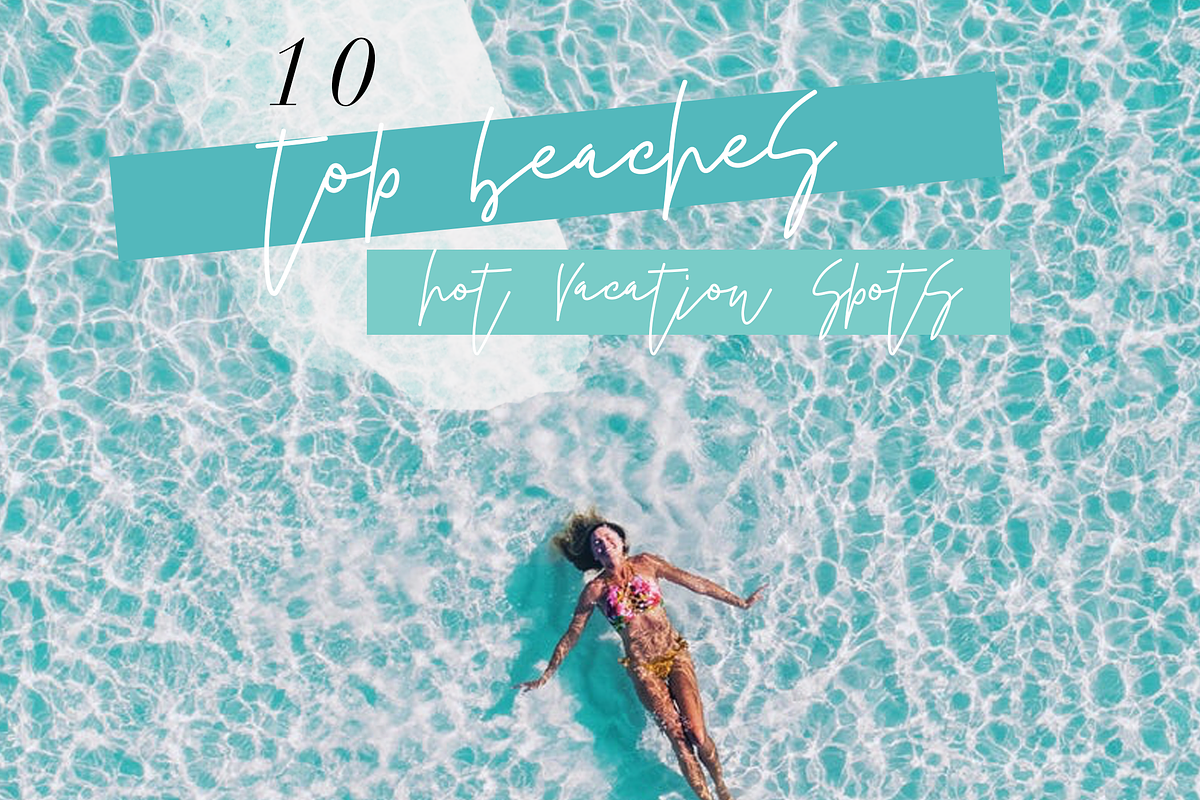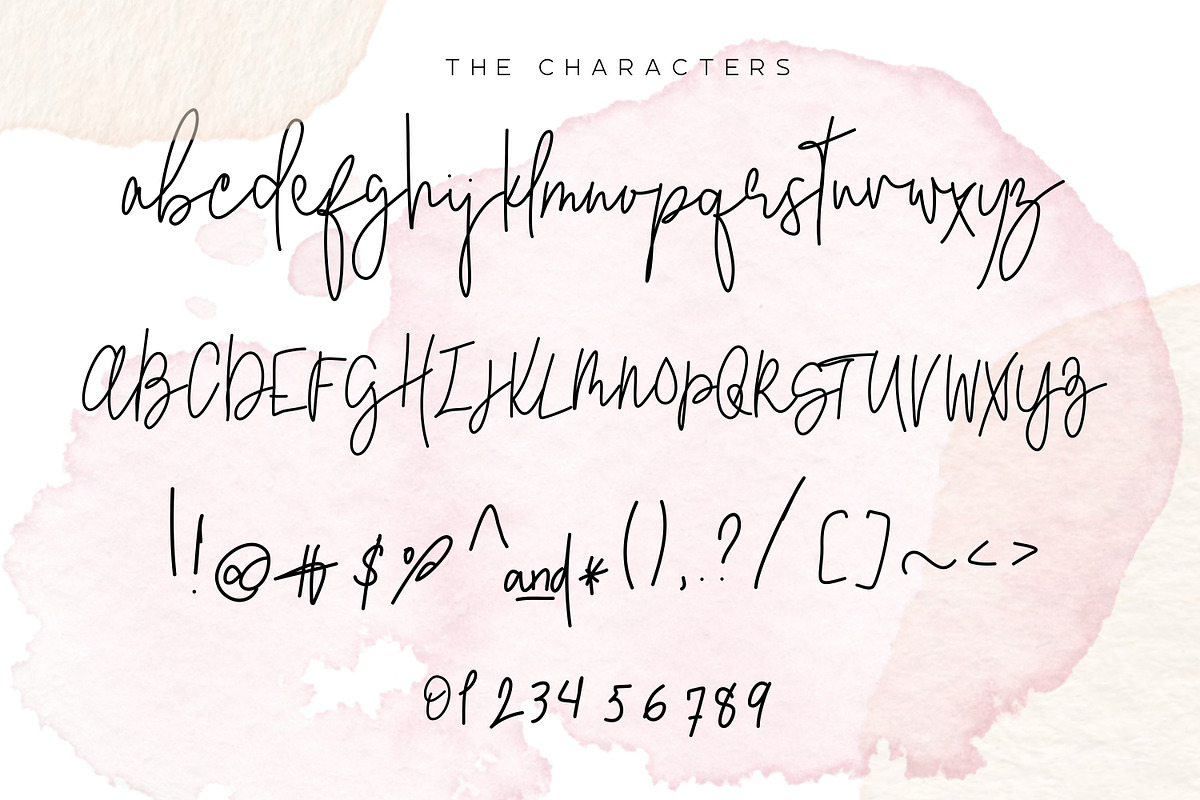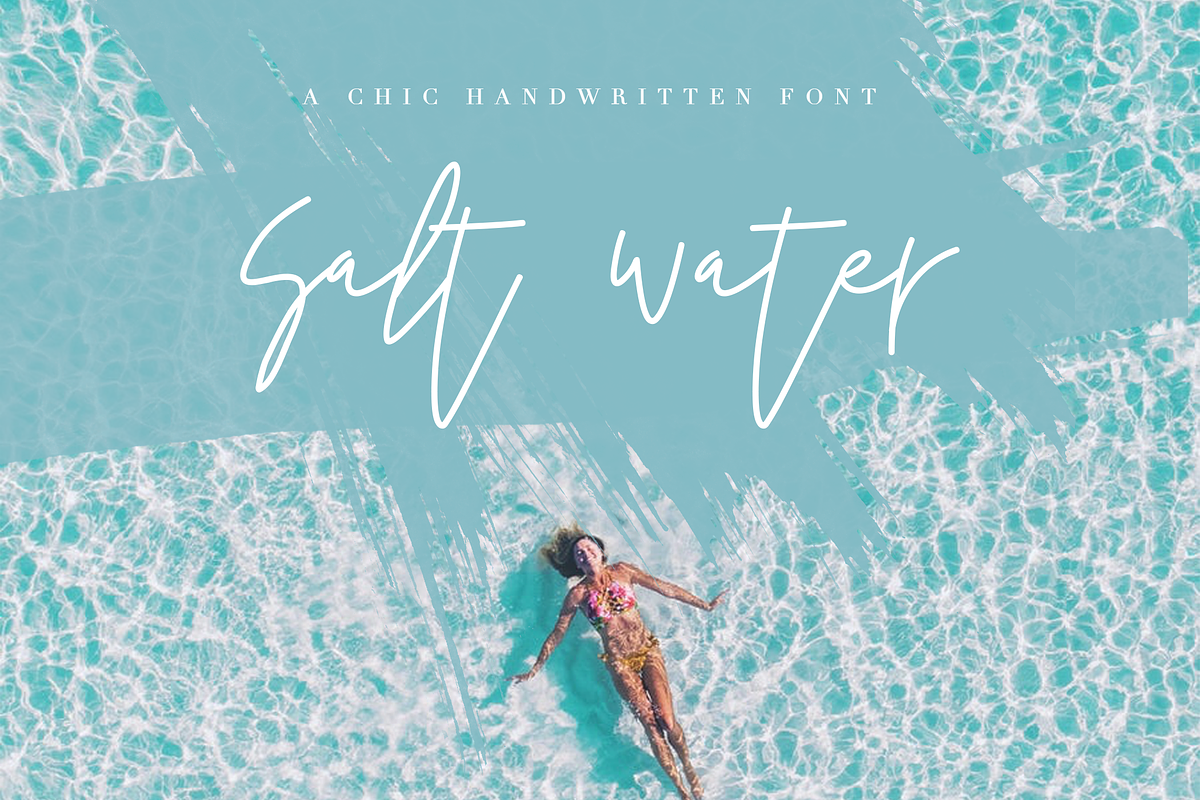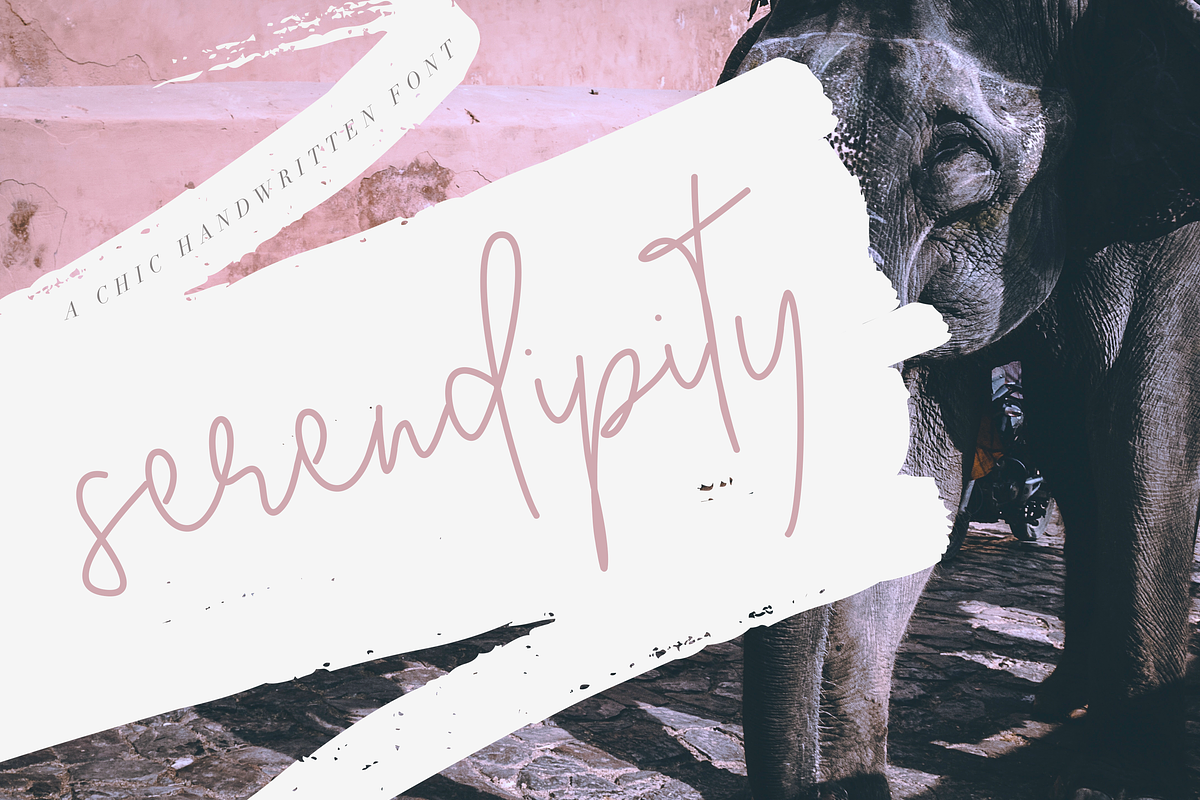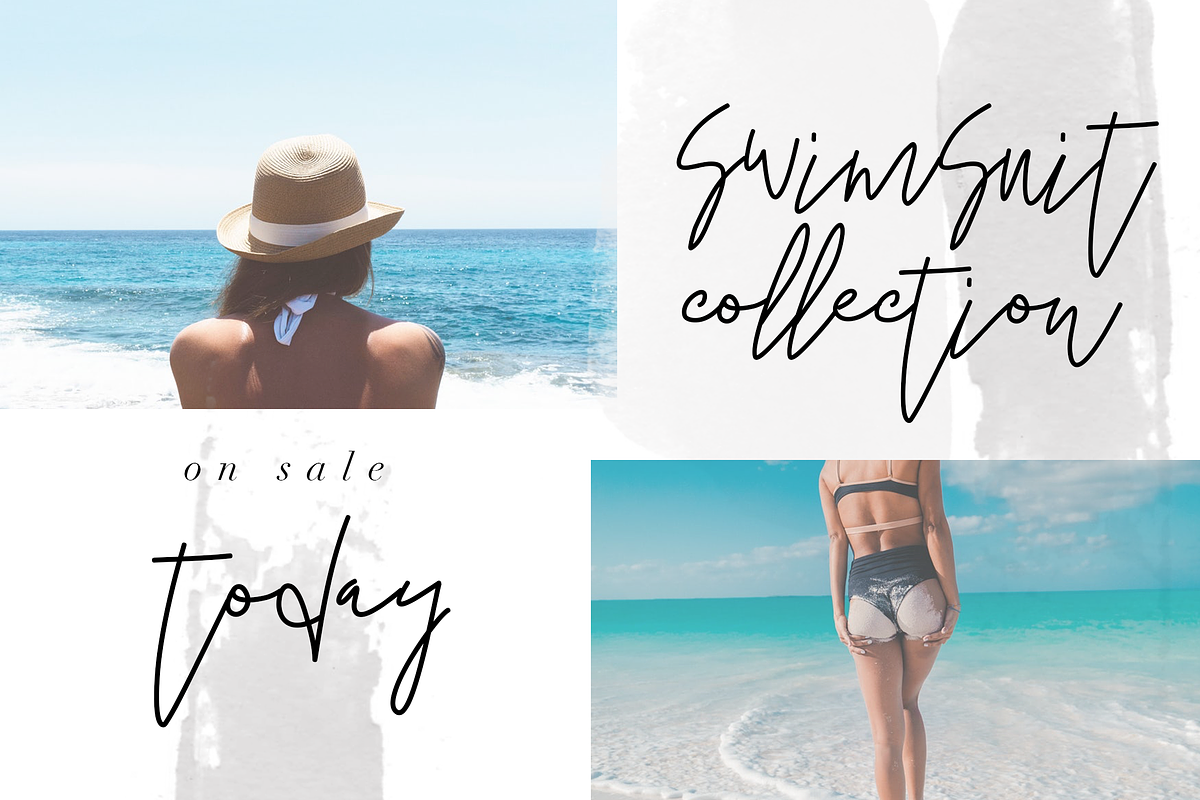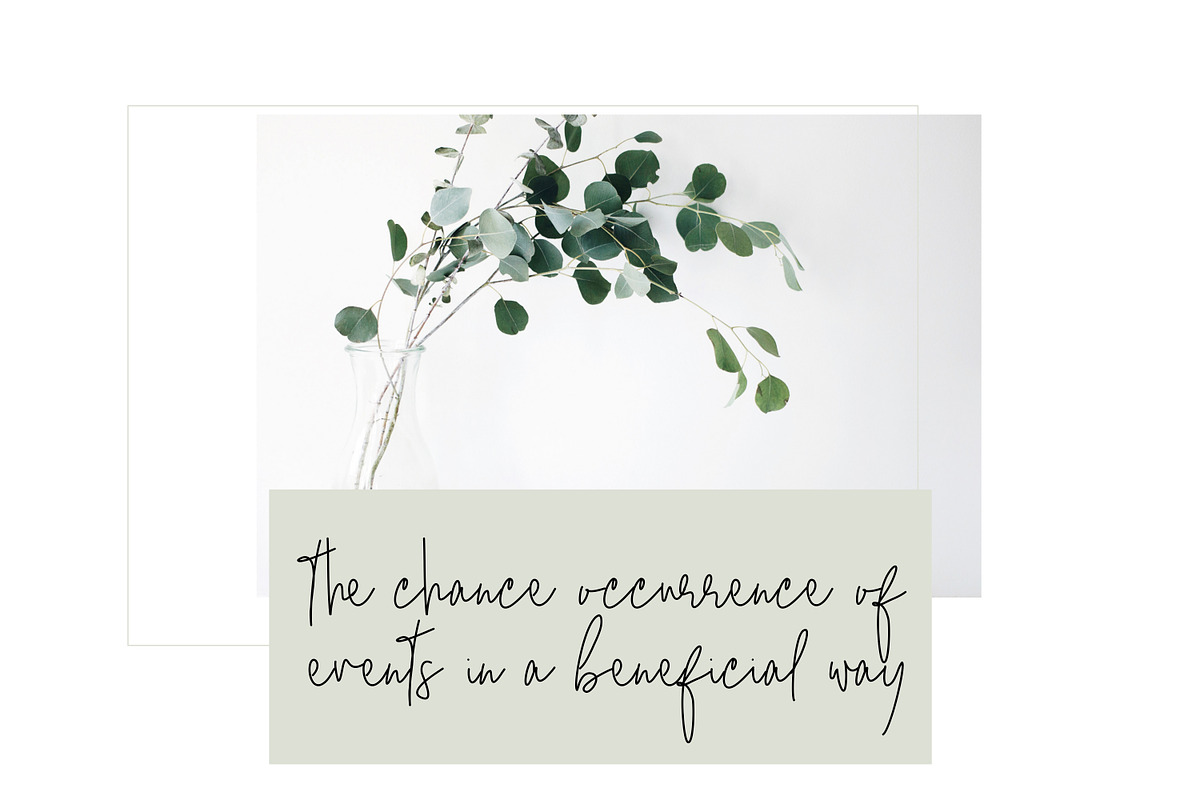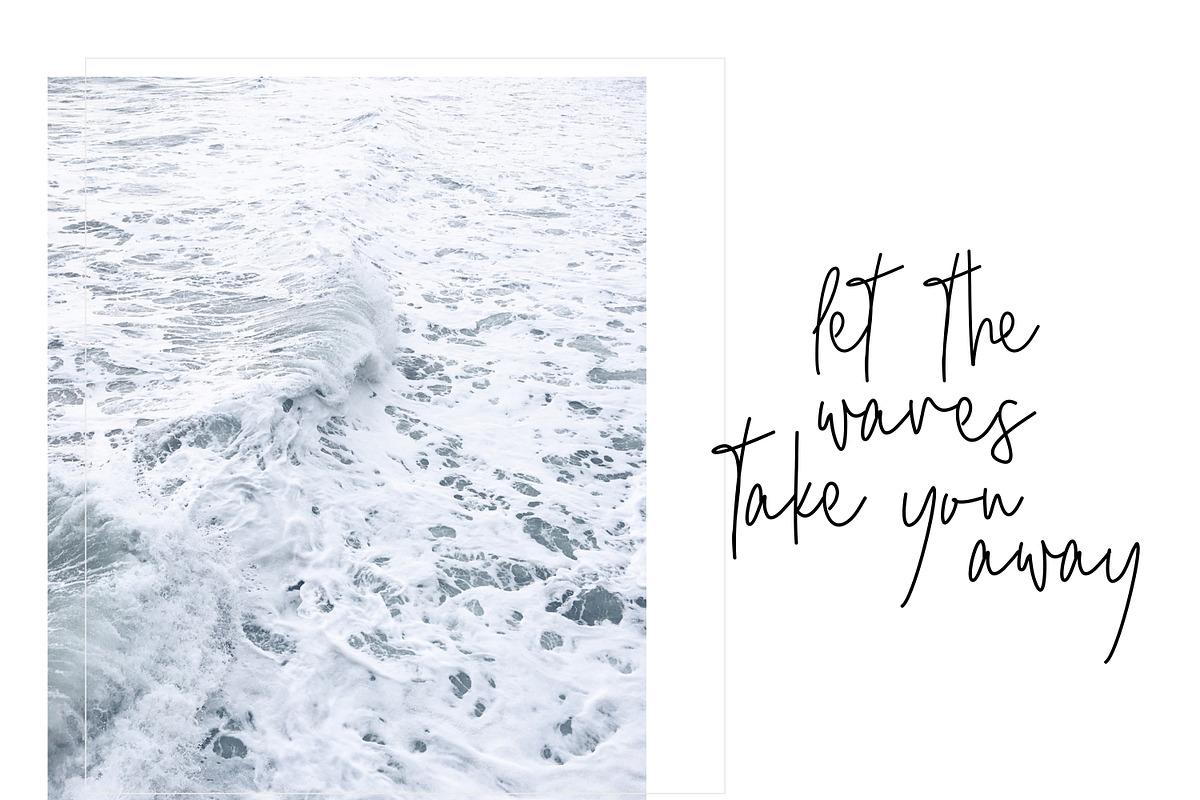
Handwritten Font Bundle
As spring begins, I would like to offer a wonderful selection of my fonts at a HUGE DISCOUNT! I've handpicked a unique selection for this special bundle. It does not include ALL of my fonts - just a mix of different styles!
Inside you will find 55 fonts - all handwritten - scripts, displays, doodles.. you name it!
-- Take a closer look at most of the fonts included below
- -- Take a closer look at most of the fonts included below Includes: Gingerbread Cookies: Mishap: Snicker: Mademoiselle: Tuesday: Saturday: W